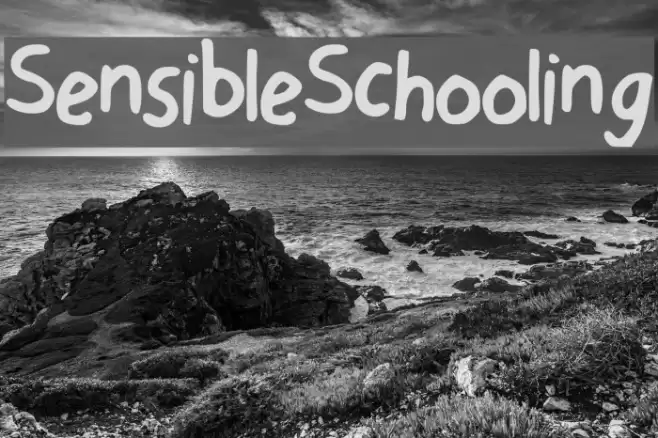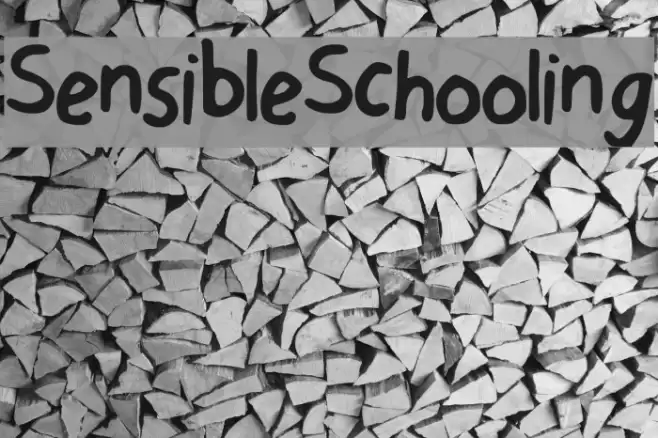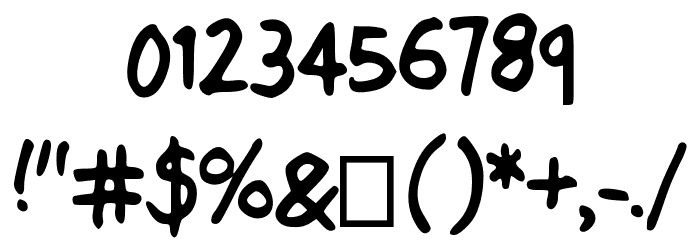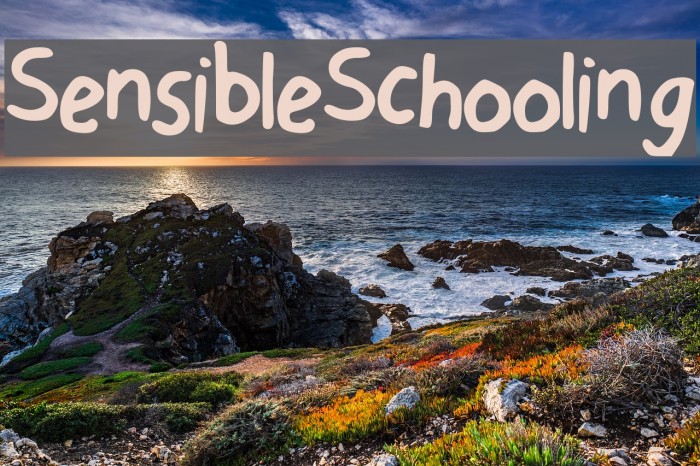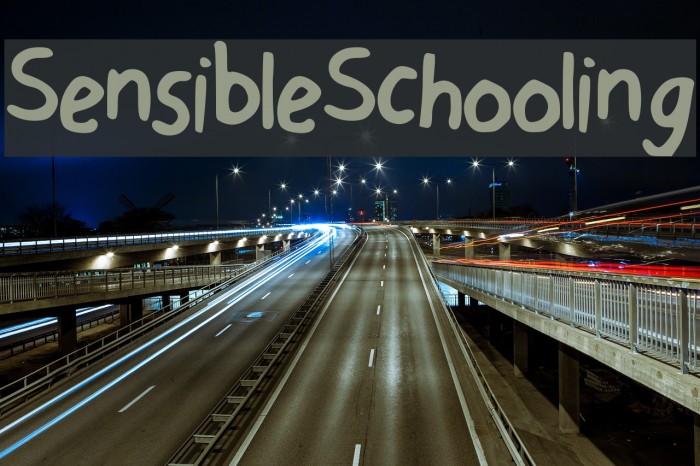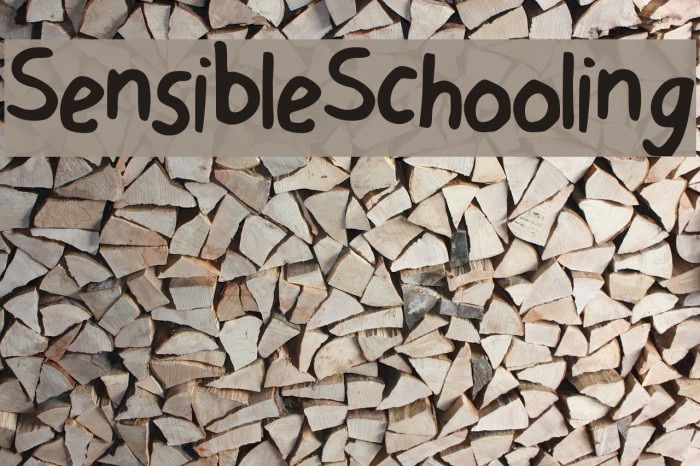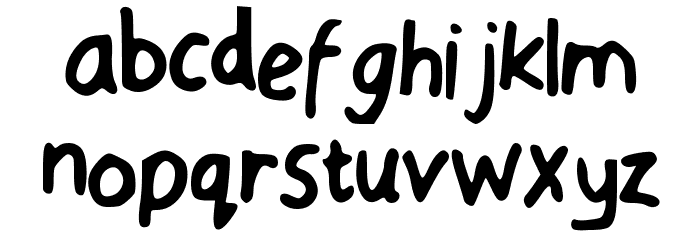
Sensible Schooling Font
Sensible Schooling Description
This playful and informal font features a handwritten style with a casual, friendly appearance. The letters are slightly uneven, adding a touch of whimsy and personality. The strokes are bold and rounded, giving the font a warm and approachable feel. It maintains a consistent line weight throughout, which enhances readability while preserving its unique character. The font includes a full set of uppercase and lowercase letters, numbers, and a variety of special characters, making it versatile for different uses. Its organic and lively design makes it suitable for projects that require a personal touch.
A playful, handwritten font with bold, rounded strokes and a casual style from Uncategorized fonts.
- Proposed Projects: Ideal for children's books, greeting cards, playful branding, and casual invitations.
- Overall Style: Casual
- Use Case: Headlines, Informal text, Branding